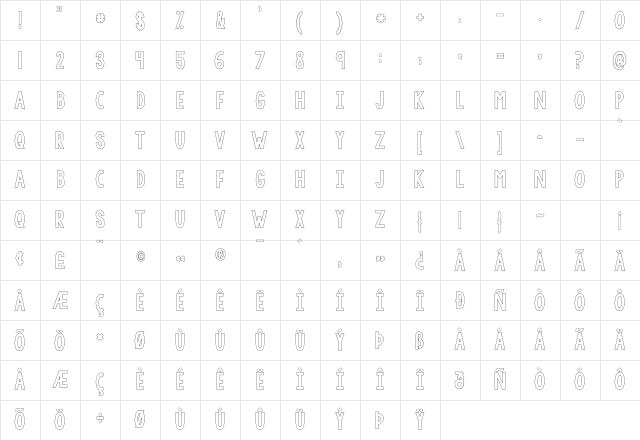
KG LET HER GO OUTLINE Regular
Design Context for KG LET HER GO OUTLINE Typeface
KG LET HER GO OUTLINE is built around its visual character rather than neutral utility — its distinctive forms are designed to make an impression at display sizes.
Font Pairing: Pair with a clean neutral sans-serif for body copy to let KG LET HER GO OUTLINE's character lead without overwhelming the composition.
Pro Tip: Use KG LET HER GO OUTLINE exclusively at display sizes — it was designed to be seen, not read at length. Let a neutral companion handle body copy.